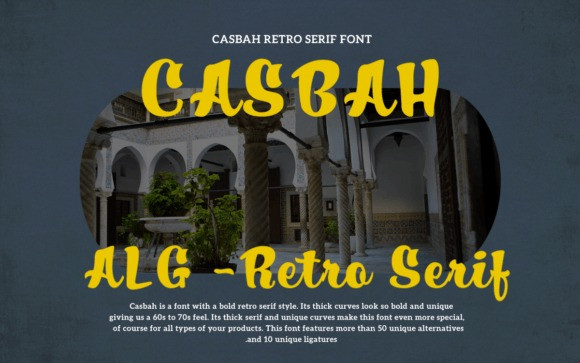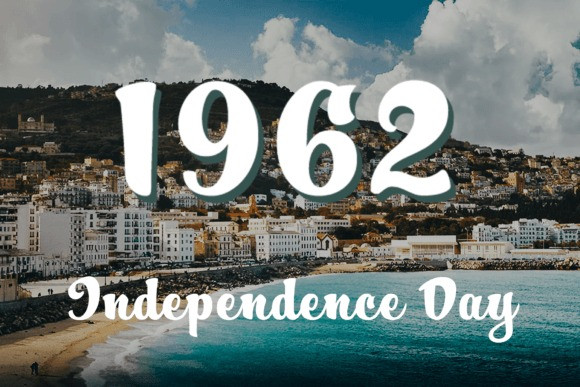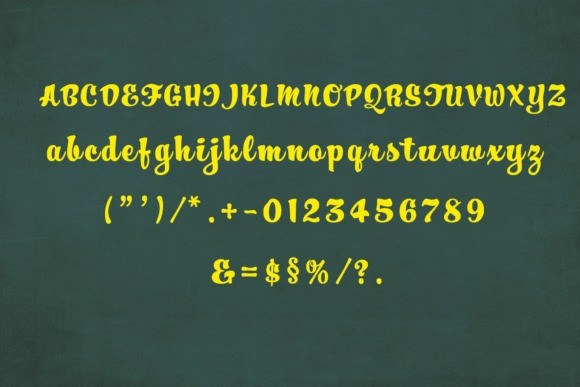
Casbah Font
Casbah is a retro and cool serif display font. Whatever the topic, this font will be a wonderful asset to your font library, as it has the potential to enhance any creation.